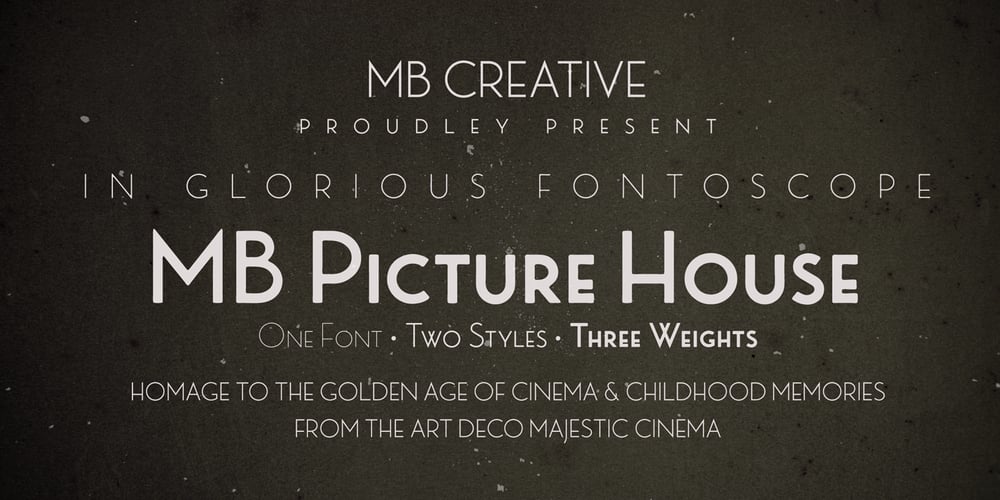
MB Picture House Font Family was designed by Ben Burford and published by Ben Burford Fonts. MB Picture House contains 6 styles and family package options. Small caps art deco font inspired by the golden age of Hollywood and childhood trips to the Majestic Cinema. Two styles, each with three weights. Picture House One is sharp and crisp, Picture House Two has a slightly ‘Out of Focus’ look to it. Both come with extended language support and oldstyle numbers, giving a lot of scope for may uses.